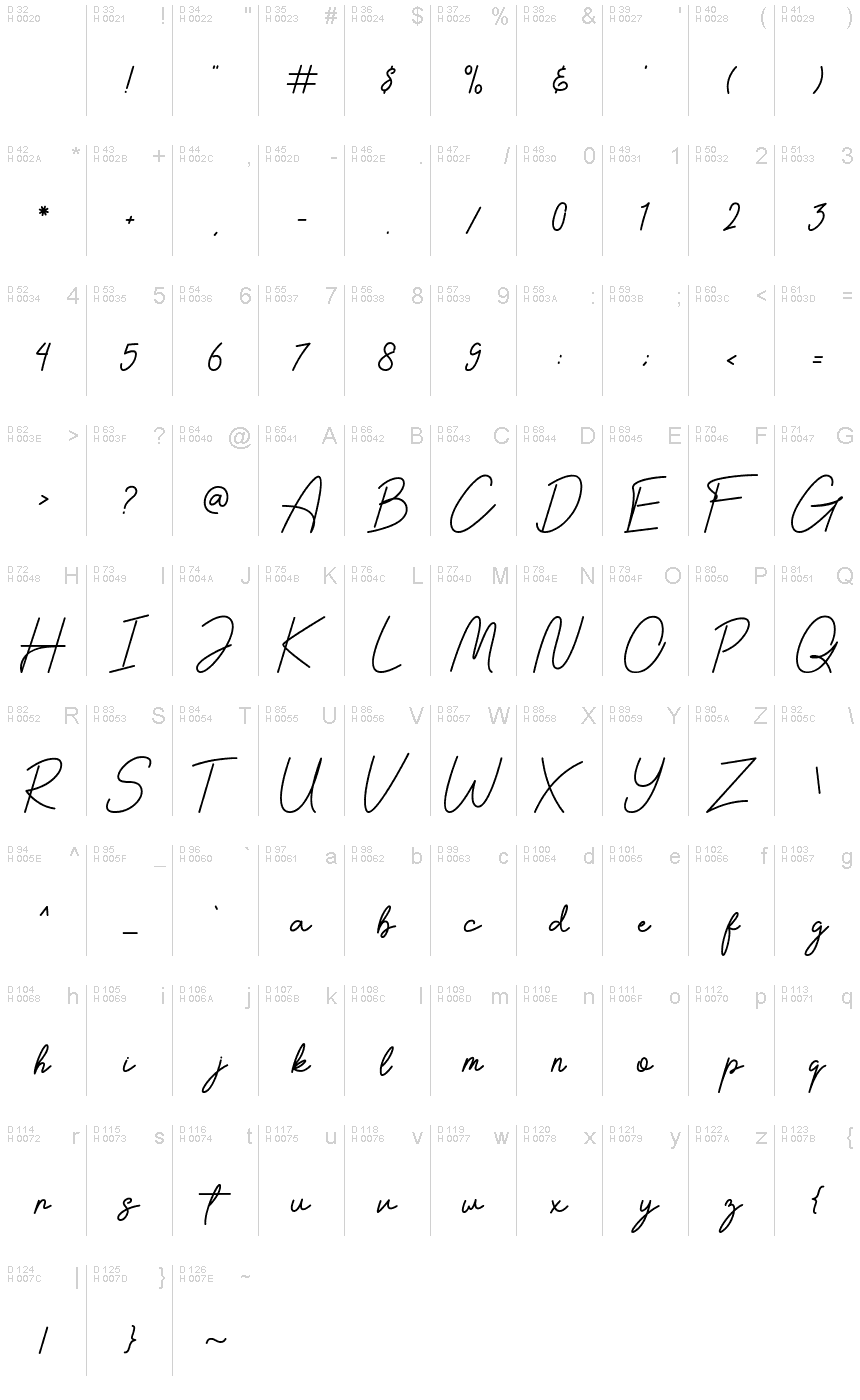
Bali Culture Script
Bali Culture Script, designed by Rangga Putra Budi Pratama, is a stunning handwritten font that exudes elegance and authenticity. Its light weight adds a delicate touch to any project, making it perfect for romantic invitations, wedding stationery, or heartfelt greeting cards. With its unique and intricate lettering style, Bali Culture Script also stands out in professional settings such as branding and advertising campaigns. Whether you're designing for personal or commercial use, this font is sure to impress with its charming handmade aesthetic. Make your next project truly distinctive with Bali Culture Script!